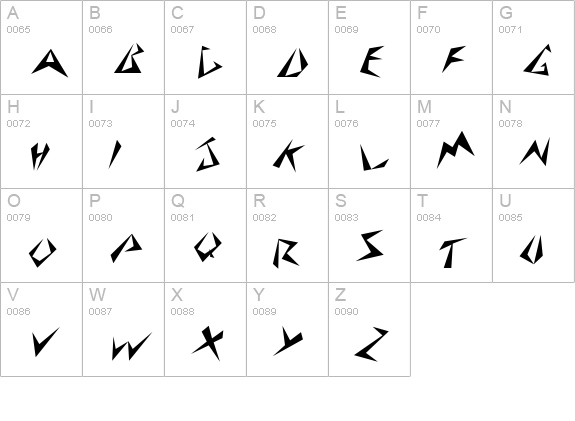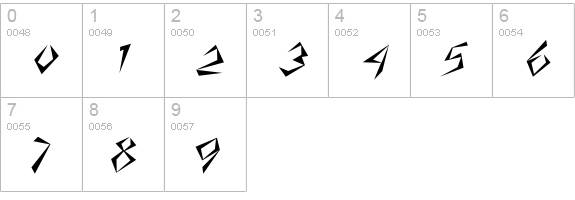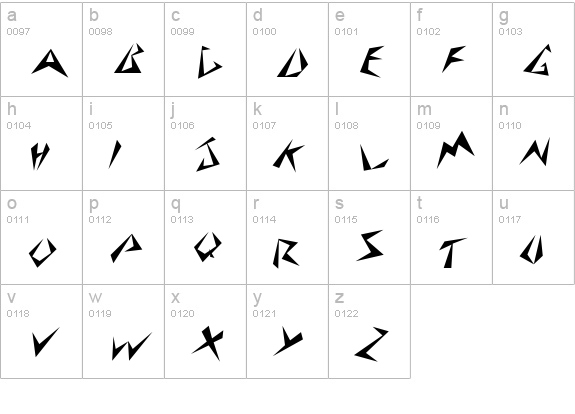
StingerSkewed Regular Font Details
StingerSkewed Regular is the standard, neutral variant in the StingerSkewed typeface family \xE2\x80\x94 well suited to general body text, paragraphs, and standard typographic work.
Introducing StingerSkewed Regular font, a modern and sleek typeface that adds a touch of sophistication to any design project. With its unique skewed style, this font is perfect for creating eye-catching headlines, logos, posters, and more. What sets StingerSkewed Regular font apart is its versatility and contemporary aesthetic, making it suitable for a wide range of design applications. Whether you're working on a branding project, website design, or social media graphics, this font is sure to make a bold statement. Best of all, StingerSkewed Regular font is available for free download at FontsMarket.com. Simply visit the website to get your hands on this stylish and impactful font today. Don't miss out on the opportunity to elevate your designs with this versatile typeface.